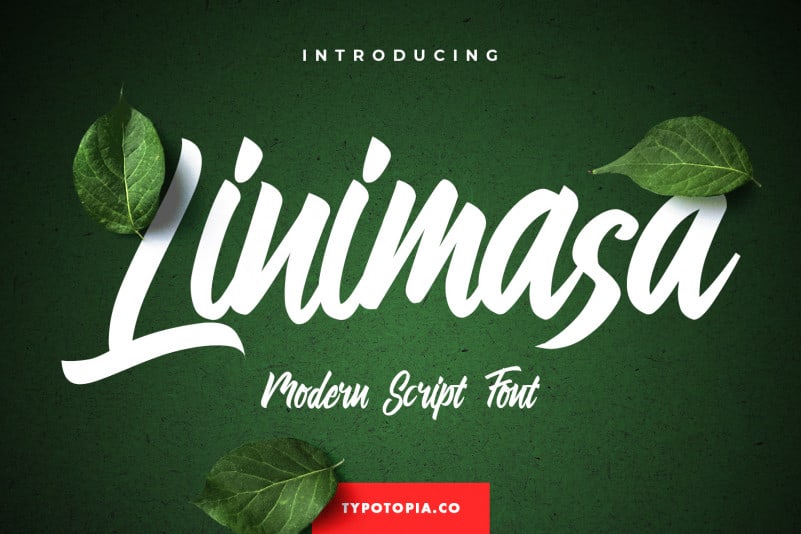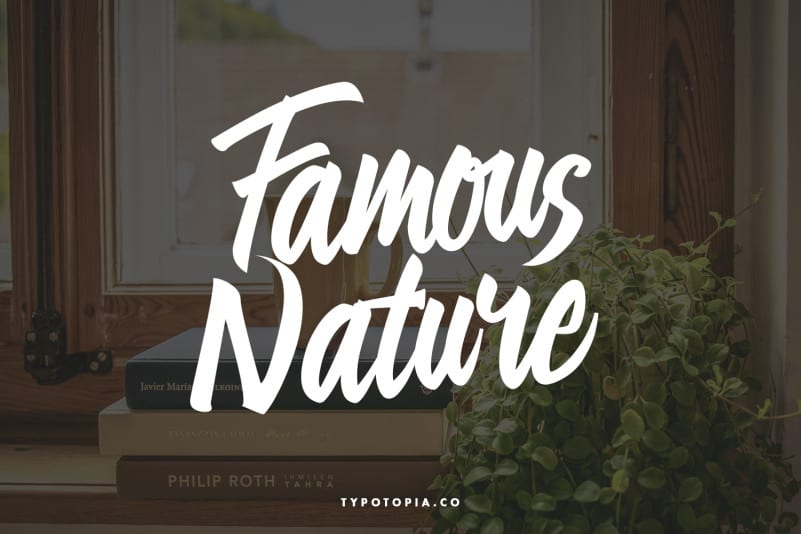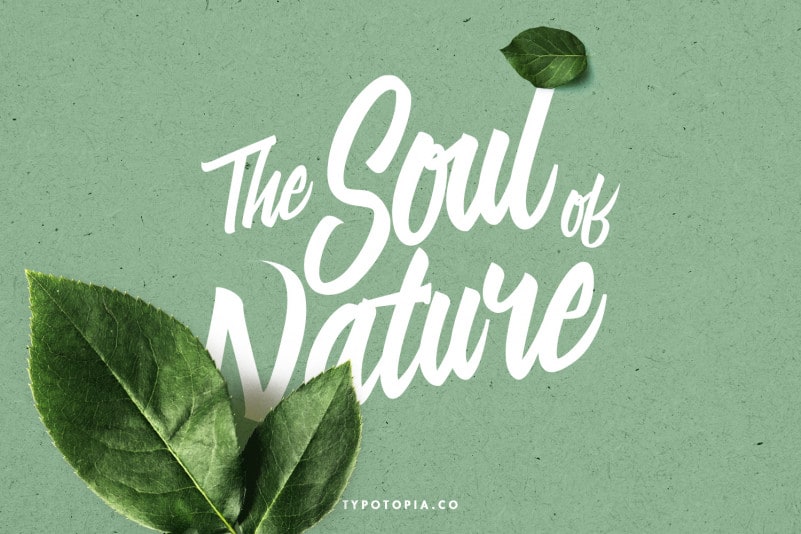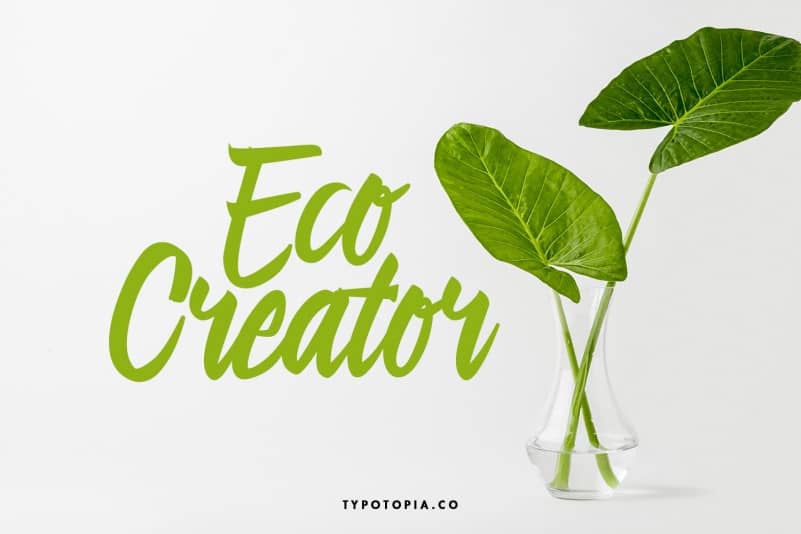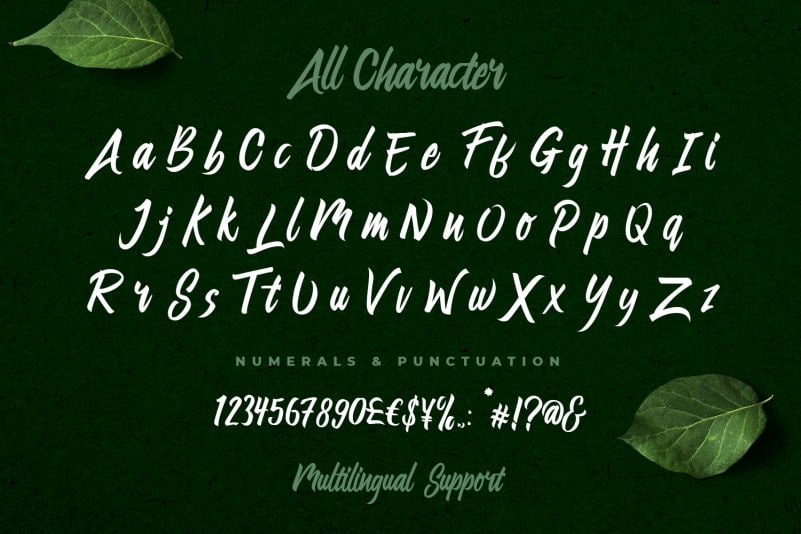
Linimasa Brush Font
Thanks for checking out Linimasa Brush Font. This Fonts Comes is a bold connected script font with a clear style and dramatic movement. Every single letters have been carefully crafted to make your designs looks better.
Linimasa Brush Font is the great choice for several purpose, such as watermark, logo, business card design, quotes, album cover, invitation letter, stationery, and many other design project that need handwriting taste.